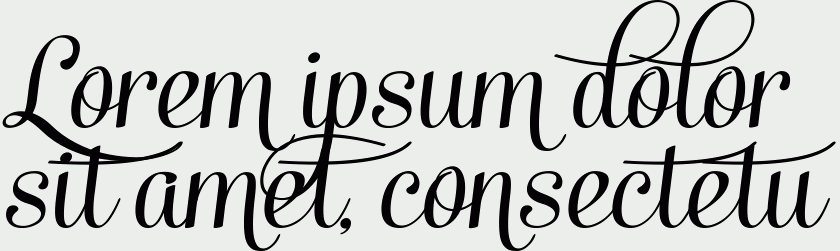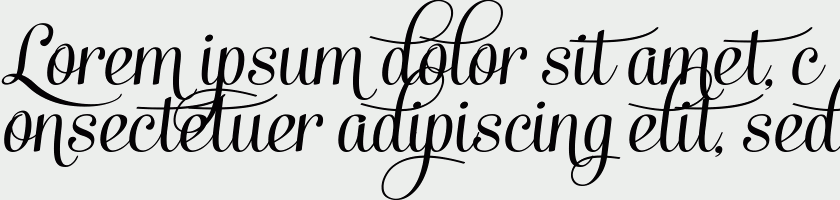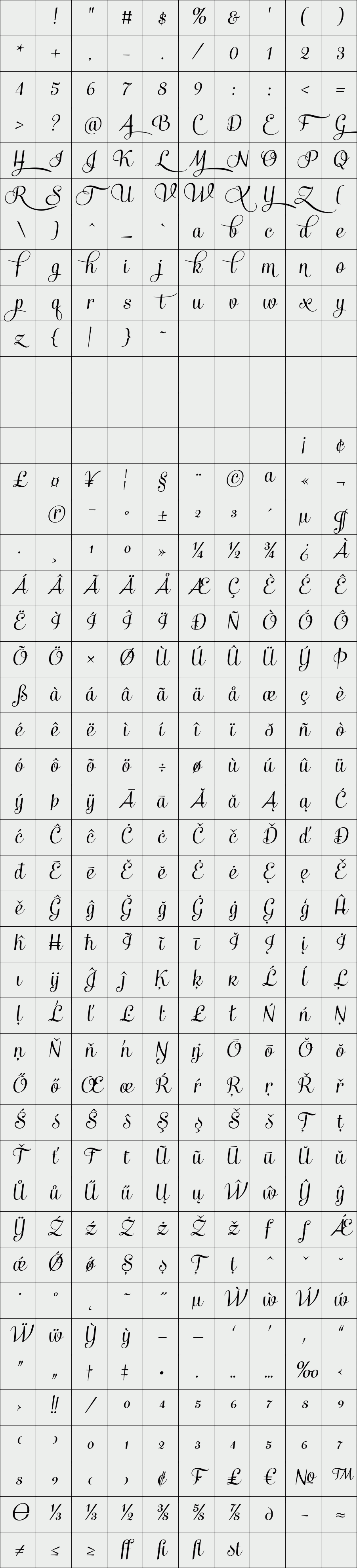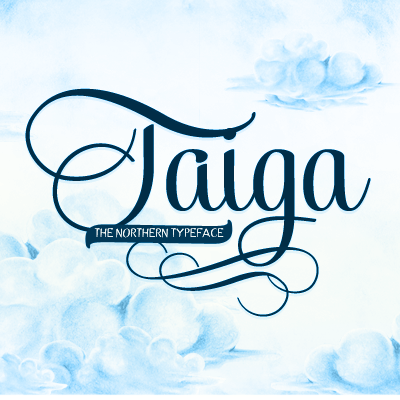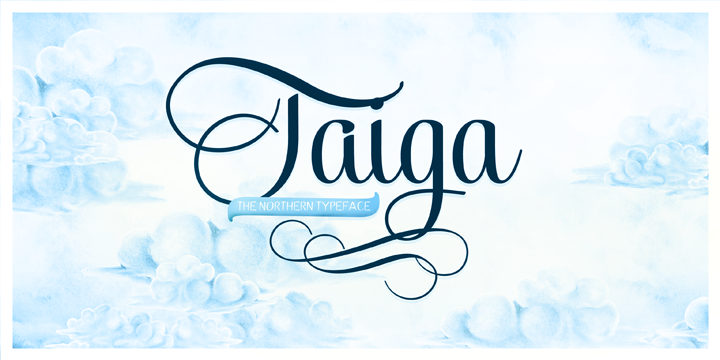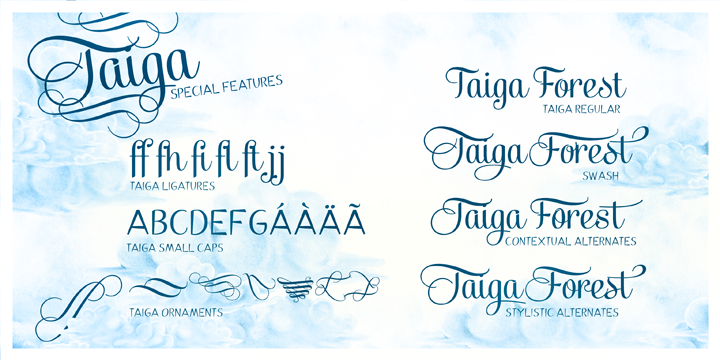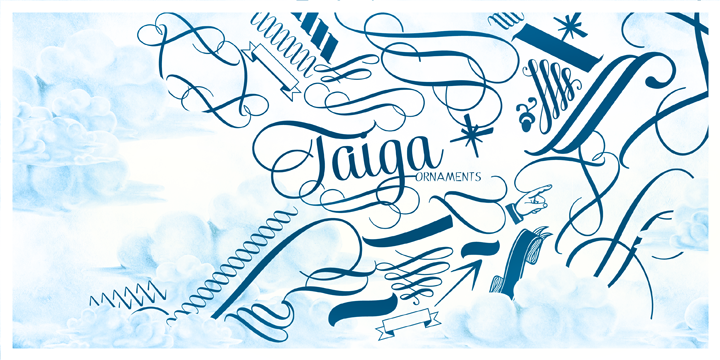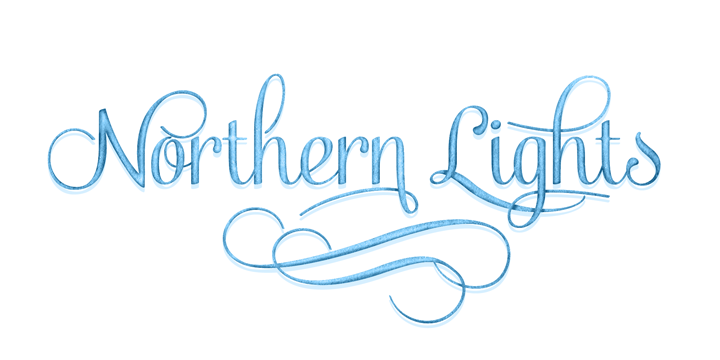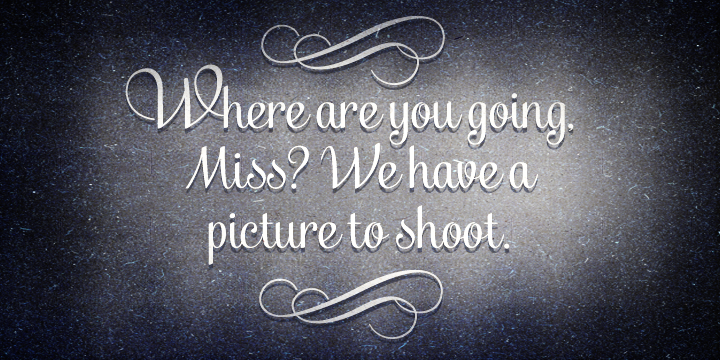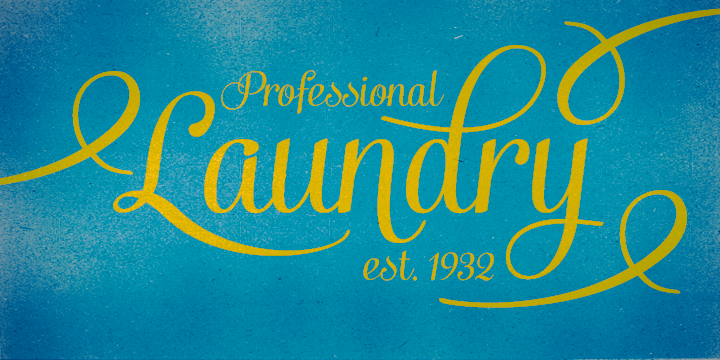
Taiga
Taiga is a classy upright script. It’s closely related to Mishka yet different: while Mishka is playful Taiga is more elegant and fancy.
Click on Swash, Contextual or Stylistic alternates in any Open Type savvy application for gorgeous display lettering and combine with Taiga Ornaments for superb results. Turn on Small Caps to activate a complete set of block capitals designed to go with the font.